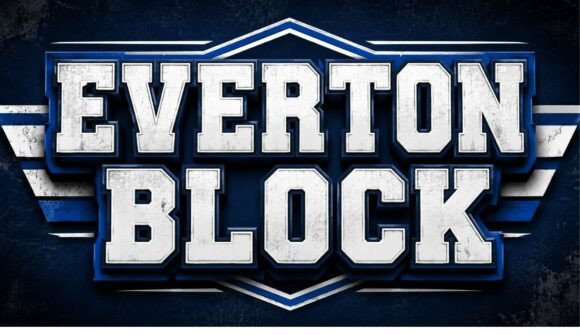
Evertone Block: A Bold Font for Competitive Design
When it comes to creating designs that command attention, the right font can make all the difference. Evertone Block is a standout choice for those looking to infuse their work with a strong, athletic, and professional vibe. Inspired by classic varsity, athletic, and collegiate lettering, this bold display font combines slab-serif shapes with thick block construction to deliver a powerful visual identity. Whether you're designing for sports, education, or branding, Evertone Block offers a unique blend of strength and style that can elevate any project.
What Makes Evertone Block Unique?
Evertone Block is more than just a font—it's a design statement. Its bold, masculine appearance makes it ideal for projects that require a sense of competition and professionalism. The font’s thick strokes and sharp edges give it a commanding presence, while its clean lines ensure readability even at smaller sizes. This combination of power and clarity makes Evertone Block versatile enough to work in a variety of contexts, from logos to posters.
One of the key features of Evertone Block is its ability to convey a sense of tradition and modernity at the same time. The font draws inspiration from classic sports typography, which has long been associated with teams, schools, and athletic events. At the same time, its contemporary design allows it to fit seamlessly into modern branding and digital media. This duality makes Evertone Block a great option for both vintage-inspired projects and cutting-edge designs.
Applications of Evertone Block
The versatility of Evertone Block means it can be used in a wide range of applications. For sports branding, this font is an excellent choice for team logos, jersey names, and tournament posters. Its boldness ensures that it stands out in any setting, whether on a stadium banner or a social media graphic. In addition, Evertone Block works well for school designs, college themes, and educational materials, where a strong visual identity is important.
For business owners and designers, Evertone Block can be a valuable tool for creating eye-catching merchandise. From stickers and banners to badges and apparel, this font adds a professional and competitive edge to any product. It’s also a popular choice for gym branding, esports, and other fitness-related projects, where a strong, energetic look is essential.
Real-World Examples
Imagine a high school football team looking to update their logo. By using Evertone Block, they can create a design that feels both traditional and modern, reflecting the spirit of the team while appealing to a broader audience. Similarly, a local gym might use this font on their signage to convey strength and determination, making their brand more memorable to customers.
In the world of esports, where branding plays a crucial role, Evertone Block can help teams stand out in a crowded market. Whether it's for a tournament poster or a social media campaign, the font’s bold and dynamic look can capture the energy of the gaming community. For vintage sports projects, Evertone Block provides a way to recreate the look of old-timey jerseys and advertisements without sacrificing modern readability.
Strengths and Considerations
Evertone Block excels in situations where a strong visual impact is needed. Its bold nature makes it ideal for headlines, titles, and other prominent text elements. However, because of its thickness, it may not be the best choice for long blocks of body text. Designers should consider the context in which they’re using the font and choose it appropriately.
Another consideration is the font’s availability. While Evertone Block is widely used in design circles, it may not be included in every font library. Users should check if the font is available for commercial use or if they need to purchase a license. Additionally, since it’s a display font, it may require careful spacing and sizing to ensure optimal legibility and aesthetics.
How to Evaluate Suitability
Before choosing Evertone Block for a project, it’s important to evaluate how well it fits the overall design concept. Ask yourself: Does the font align with the tone and message of the project? Will it be readable in the intended format? Is it appropriate for the target audience?
For example, if you’re designing a children’s book, Evertone Block may be too intense and not suitable for the overall aesthetic. On the other hand, if you’re creating a sports event flyer, the font’s boldness could be exactly what you need to grab attention and convey excitement.
Testing the font in different sizes and contexts is also a good idea. Try using it in various layouts to see how it performs. If possible, print a sample to see how it looks in real life. This will help you determine if Evertone Block is the right choice for your specific needs.
Conclusion
Evertone Block is more than just a font—it’s a powerful design tool that can bring energy, strength, and professionalism to any project. Whether you're working on sports branding, educational materials, or merchandise, this font offers a unique blend of tradition and modernity that can set your work apart. By understanding its strengths and limitations, you can make informed decisions about when and how to use Evertone Block effectively.
As you explore the possibilities of this bold display font, remember that the right choice depends on your goals and audience. With careful consideration and thoughtful application, Evertone Block can help you create designs that not only look great but also communicate the right message. Whether you're a designer, a business owner, or a creator, Evertone Block is a valuable asset in your design toolkit.